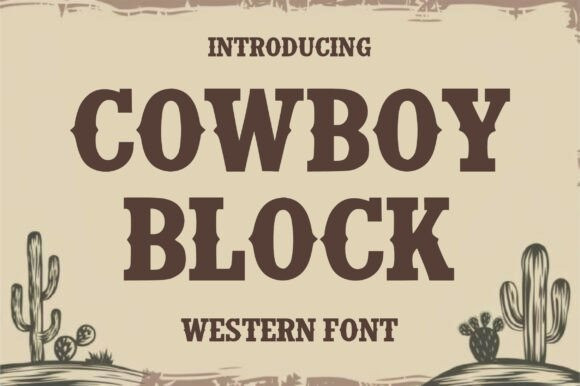
Cowboy Block Font
Designer: Craft Artist
Cowboy Block Font is a bold Western display font with strong block serifs and a clean vintage cowboy style.
This all-caps Cowboy Block typeface is characterized by robust, thick letterforms and distinctive decorative spurs (or wedges) extending from the serifs, providing a genuine saloon-style feel that is highly impactful and masculine. Its strong, condensed weight ensures maximum visibility in signage and headers.
Use this authentic Western font for designing old-timey wanted posters, custom saloon or barbecue restaurant signage, apparel branding for outdoor and rustic goods, or creating bold titles for country music album art. The Cowboy Block font is the essential typeface for capturing the spirit of the frontier.
Its rugged shapes and classic Wild-West look make it ideal for standout titles, rustic logos, printed apparel, badges, labels, posters, and retro-themed projects.
Perfect for designers who want a powerful, authentic Western aesthetic in their work.